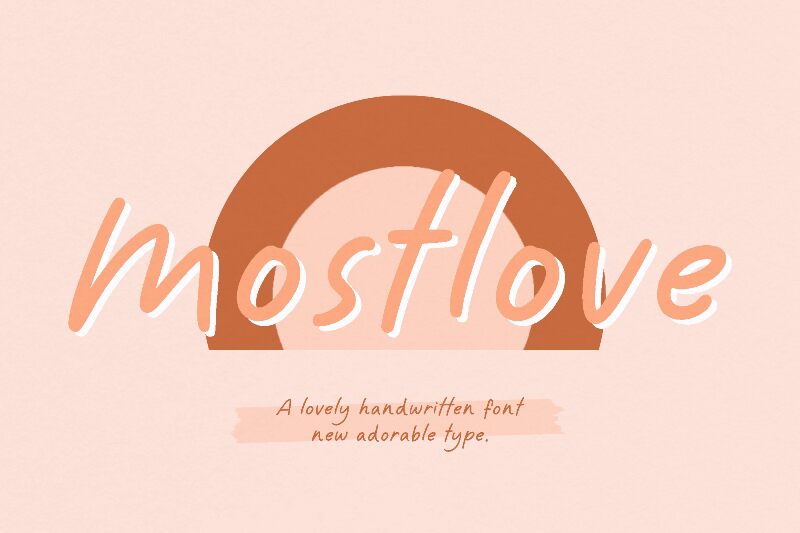
Mostlove Beauty
Mostlove Beauty font by Fontherapy Studio is a unique free handwritten font that embodies elegance with its fluid lines and modern vibe. It brings a personalized feel suitable for communication where warmth and approachability are desired.
Add it to invitations, greeting cards, posters, packaging designs, and logos for flair. Use it on blog headers, social media ads or posts where creativity is needed. Explore more uses in letterheads or as part of branding designs.